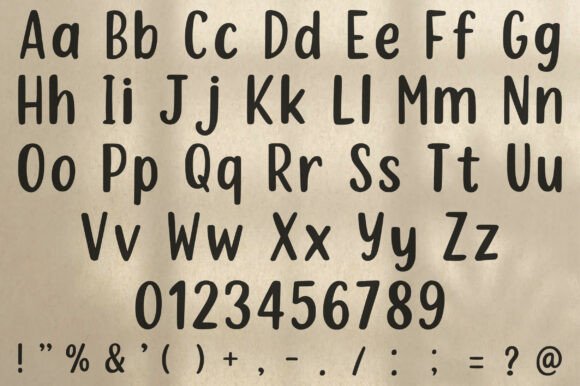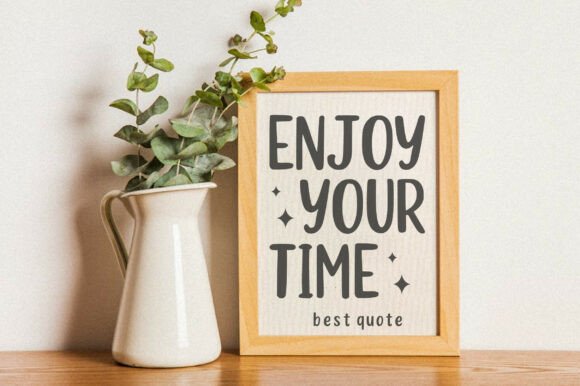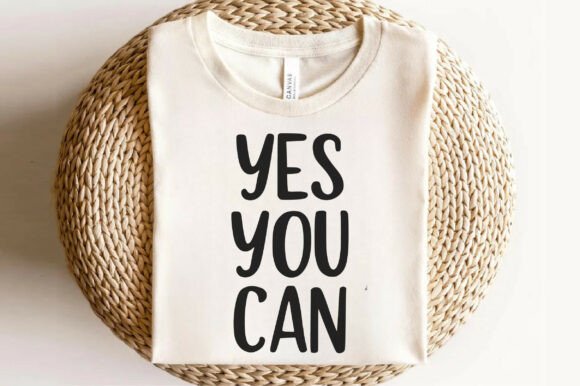
The Joy of Arcadia Font: A Designer’s New Best Friend
I’ll never forget the time I was working on a children’s party invitation project, and I just couldn’t find the right font to capture the playful vibe I was going for. The client wanted something fun, friendly, and engaging, but everything I tried seemed either too boring or too over-the-top. That’s when I stumbled upon Arcadia Font, and let me tell you, it was love at first sight! 💕
With its soft, rounded shapes and charming handmade feel, Arcadia instantly brought a smile to my face. I knew right then and there that it was the perfect fit for my project. And as I started using it, I realized that it was versatile enough to work for a wide range of designs, from kids’ projects to branding and everything in between.
An Honest Review of Arcadia Font
What I Love About Arcadia ✨
- ✅ Playful and fun: Arcadia’s hand-drawn style adds a joyful touch to any design.
- ✅ Versatile: Its simple yet eye-catching style makes it perfect for both personal and professional use.
- ✅ Easy to read: The soft, rounded shapes make it easy on the eyes, even at smaller sizes.
- ✅ Great for kids’ projects: Arcadia’s sweet and playful vibe is perfect for children’s designs, from party invitations to educational materials.
While Arcadia is an amazing font, it’s not without its limitations. For example:
- ⚠️ Limited use in formal designs: Arcadia’s playful style might not be the best fit for formal or corporate designs.
- ⚠️ May not work well at very small sizes: While Arcadia is easy to read, it may lose some of its charm at very small sizes.
The Story Behind Arcadia Font
Arcadia Font was designed with the intention of creating a friendly and approachable font that would bring joy to designs. The designer, inspired by childhood memories of hand-drawn letters and playful typography, crafted Arcadia to be a versatile and fun font that would work for a wide range of projects.
| Font Name | Arcadia Font |
| Author | Meow Creation |
Q: What type of projects is Arcadia Font best suited for?
A: Arcadia Font is perfect for kids’ projects, greeting cards, invitations, posters, quotes, and branding.
Q: Does Arcadia Font support OpenType features?
A: Yes, Arcadia Font supports OpenType features, including ligatures and stylistic alternates.